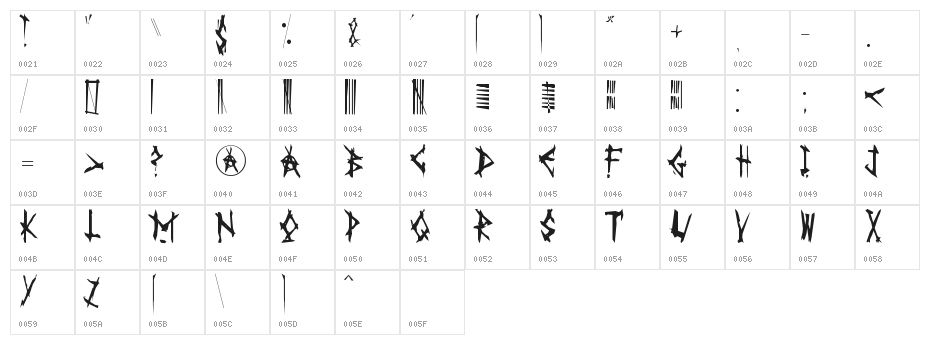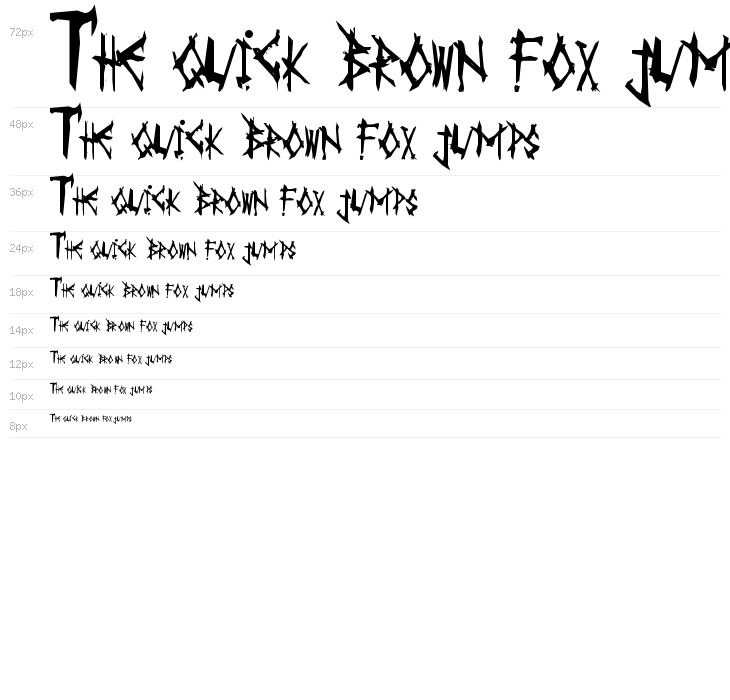
AnarK Font
AnarK Description
This font exhibits a highly distinctive and edgy style, characterized by sharp, angular lines and a chaotic, almost rebellious aesthetic. The letters are formed with jagged edges and irregular strokes, giving it a raw, untamed appearance. The uppercase and lowercase letters maintain a consistent theme of ruggedness, while the numbers and special characters follow suit with equally striking designs. This font's unique style makes it stand out, capturing attention with its bold and unconventional look.
| Overall Style | Modern, Edgy |
| Proposed Projects | Ideal for music album covers, posters, or branding for edgy and alternative brands. |